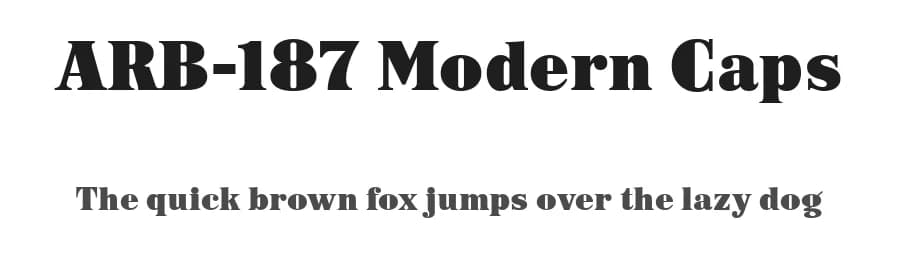
About ARB-187 Modern Caps Font
Beginning in January, 1932, Alf R. Becker of St. Louis Missouri, at the request of then-editor E. Thomas Kelly, supplied SIGNS of the Times magazine’s new Art and Design section with an alphabet a month, a project initially predicted to last only two years. Misjudging the popularity of the “series”, it instead ran for 27 years, ending finally two months before Becker’s death in 1959, for a grand total of 320 alphabets, a nearly perfect, uninterrupted run. In late 1941, just ten years after the first alphabet was published, 100 of those alphabets were compiled and published in book form under the title, 100 Alphabets, by Alf R. Becker.
And so, as published in August, 1937, The Fontry presents a limited version of Becker's 187th alphabet, Moderne Caps.
ARB-187 Modern Caps Font